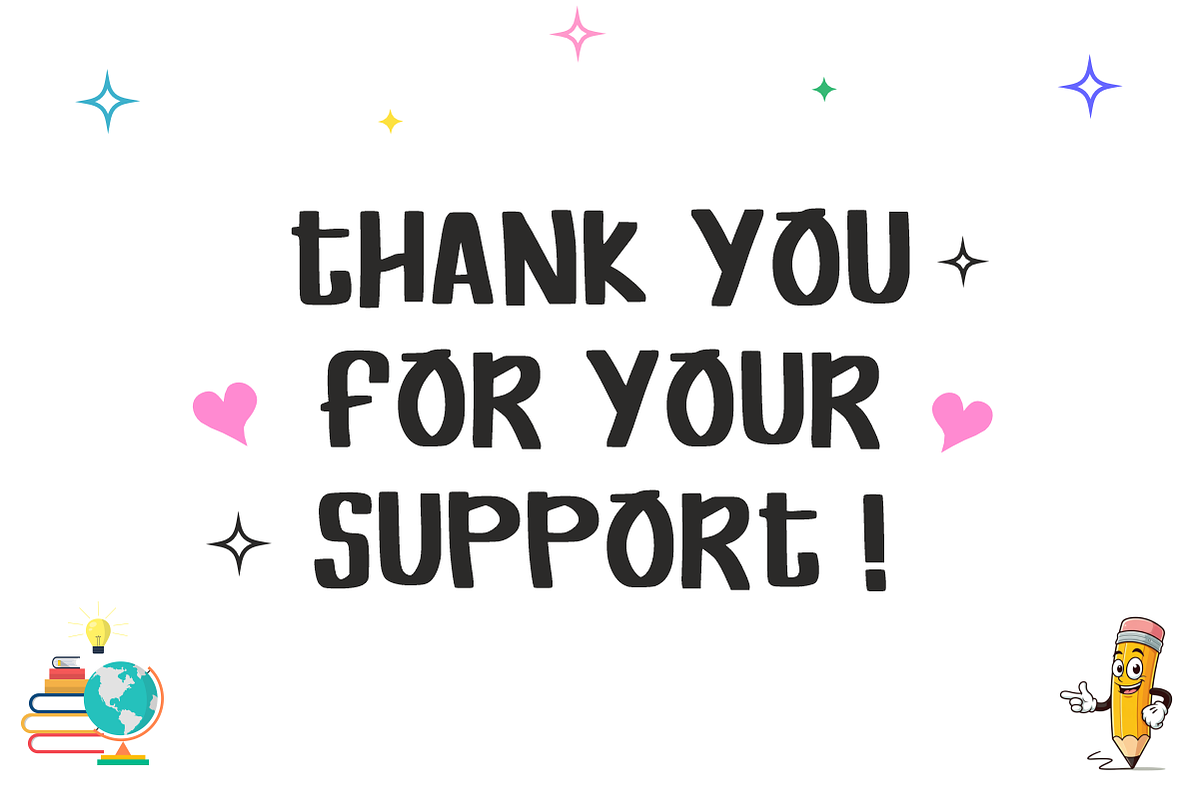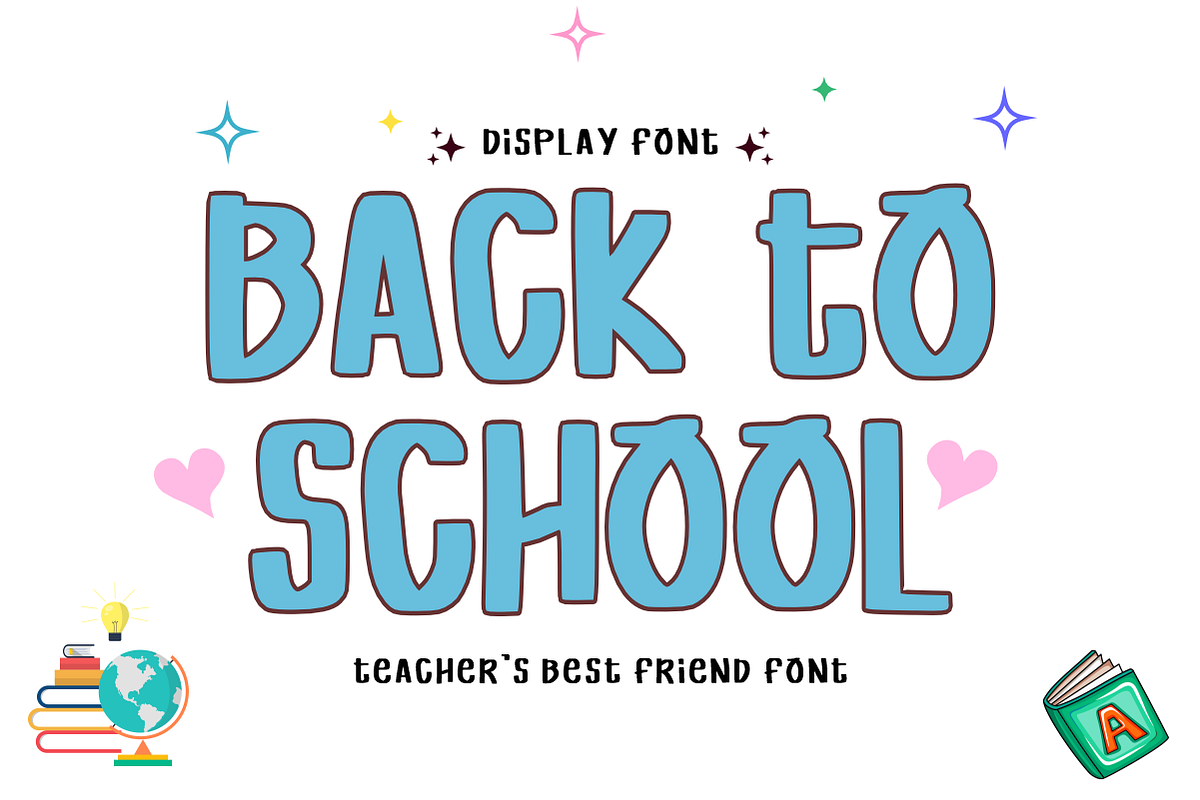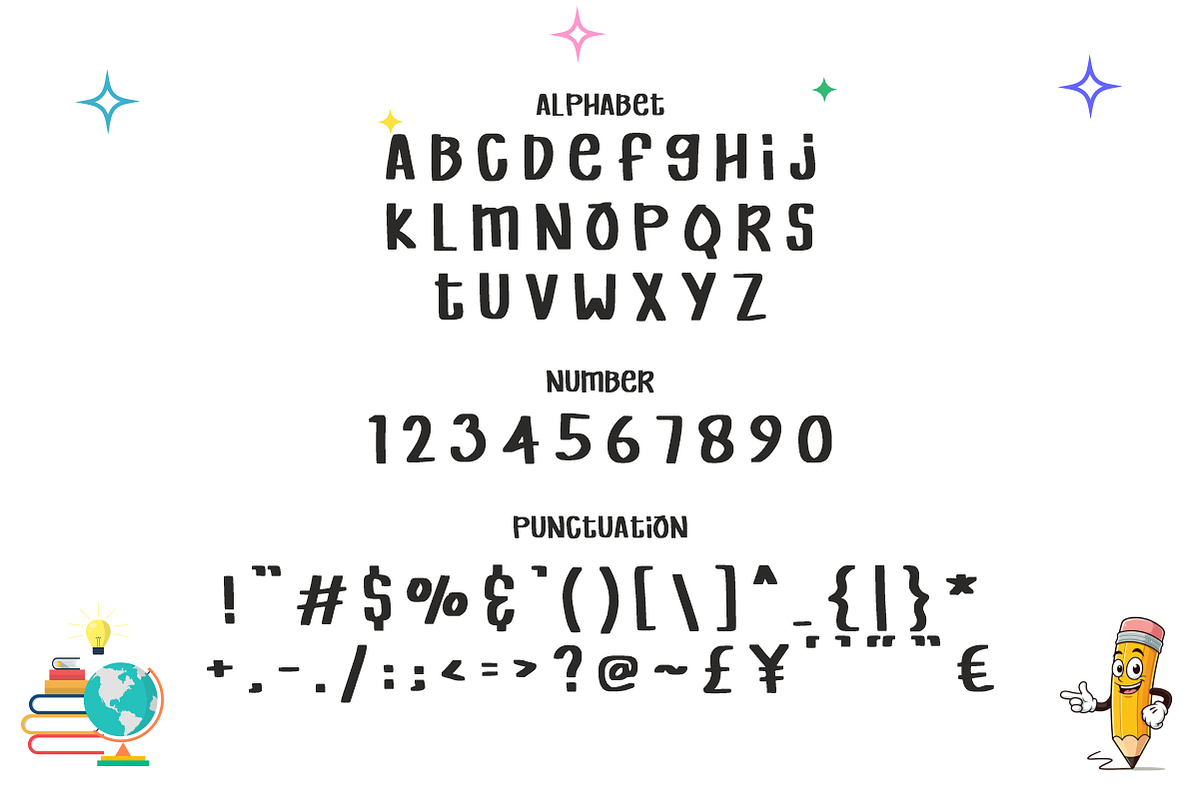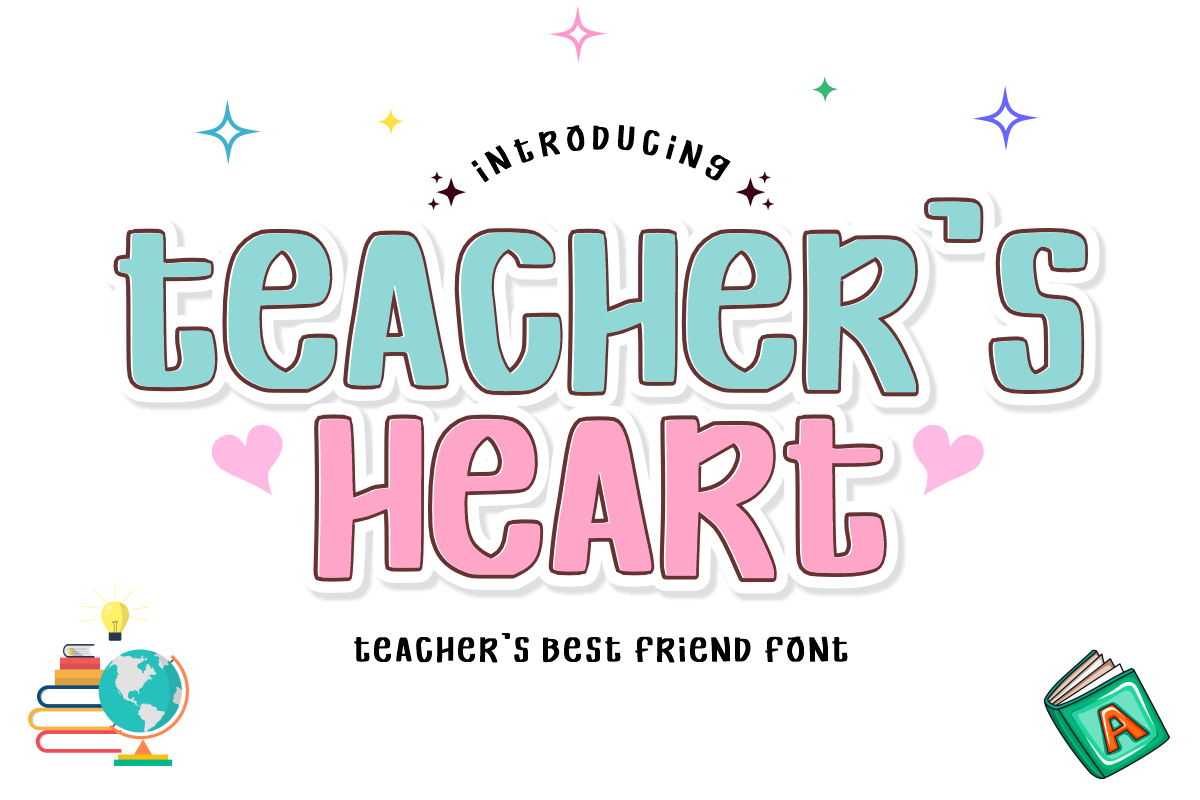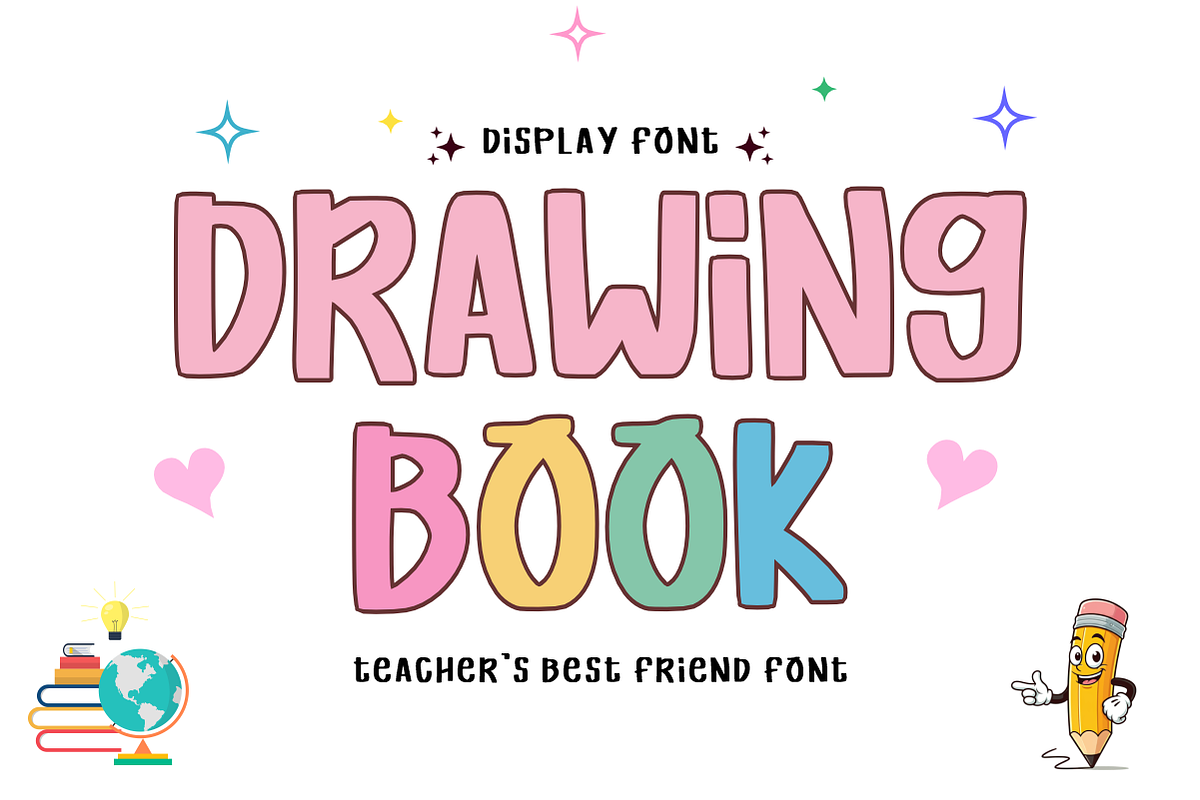
Teacher’s Heart - Hand-Drawn Font
Teacher’s Heart - Playful Hand-Drawn Display Font
Bring warmth and a friendly, welcoming touch to your projects with Teacher’s Heart! True to its narrative as a "teacher's best friend font," this playful, hand-crafted display font features charming, blocky letterforms built to add instant personality, high visual engagement, and a heartwarming aesthetic to any layout.
Whether you are designing for the juvenile market, creating family-focused brand identities, or developing vibrant marketing materials, Teacher’s Heart beautifully captures an approachable, creative spirit. It is highly legible, versatile, and fully optimized for premium digital and print design workflows.
All-Caps Character Set (Quirky, blocky uppercase letters with a hand-drawn feel)
Numbers & Basic Punctuation (Essential, simple symbols included)
Educational Publishing & Children's Book Covers 📚
Kids' Product Packaging & Whimsical Label Design 🧸
Lifestyle Branding & Family-Centric Creative Logos 🎨
Social Media Marketing & Engaging Video Graphics 📱
Vibrant Apparel Design & Youth Merchandise Branding 👕